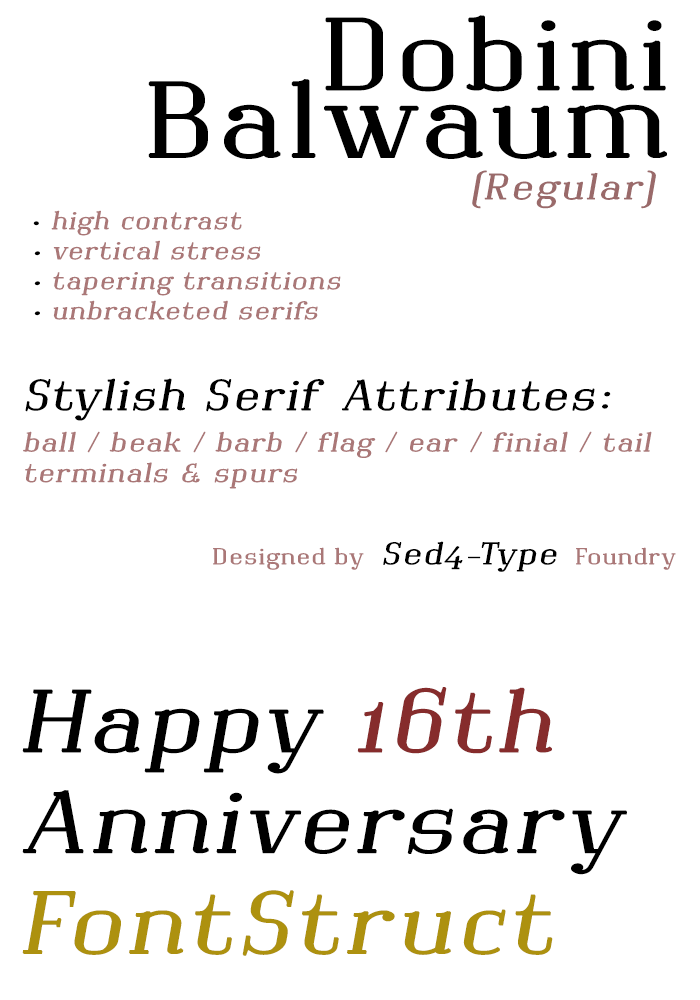
• BODINI BALWAUM (Regular) — Didone-style 18th century modern serif
Dobini Balwaum (Regular) is a Didone, or modern, serif typefaces, inspired by the works of Bodoni, Didot and Walbaum.
This is the solid (or regular) style for the Dobini Balwaum typeface.
In an attempt at getting that typical sophisticated look, the letters have been provided with a stylish mixture of various different designed Serif attributes.
═════] Type elements ]
Serifs
• Foot—abrupt (unbracketed)  bilateral hairline
• Spur—adnate (wedged)  unilateral reflexive
Terminals
• ball/beak/barb/flag/ear/finial/tail  terminals & spurs
Apex
• pointed cup
═════] Glyph alternate forms ]
Letters:
• a & g—double- & single-storey "a" and loop-tail & fish-hook "g" sets
• K k & R—curved & straight legged letter alternate sets
• u & wunilateral reflexive & bilateral hairline alternate spur sets
• x—alternate asymmetrical lowercase letter
• J & j—narrower glyphs alternates
• t (2x)stylistic alternates
• s—alternate form with slight wider top section
═════] Text figures ]
• (default) Old Style—(non-lining)
• (alt 1) Modern—(lining)
• (alt 2) "Didot" Old Style—(non-lining)
═════] Optical corrections ]
top/bottom curve overshoot
• tapered transitions for shoulders & arc of stems
• stroke-weight compensation for horizontals